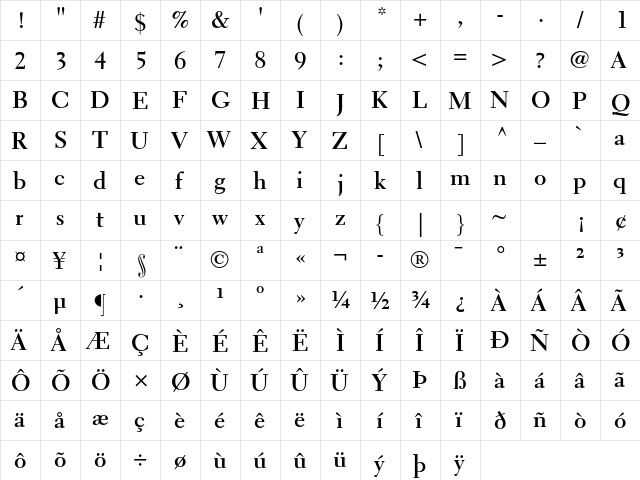
Electra LT Std Bold
| Designer | William A. Dwiggins |
Design Context for Electra LT Std Typeface
Electra LT Std takes a measured approach to typography — its balanced proportions and neutral character make it a reliable workhorse for both digital and print work. The heavy weight commands attention and anchors typographic hierarchies.